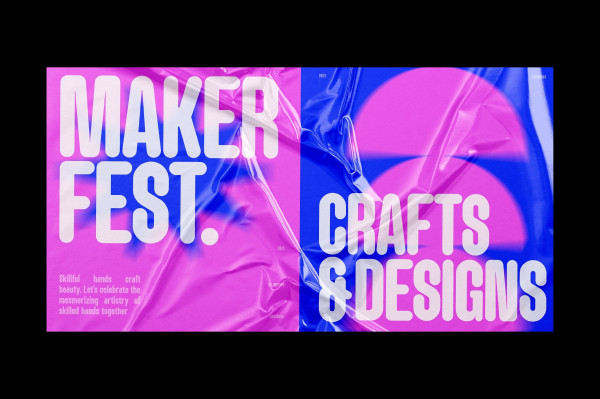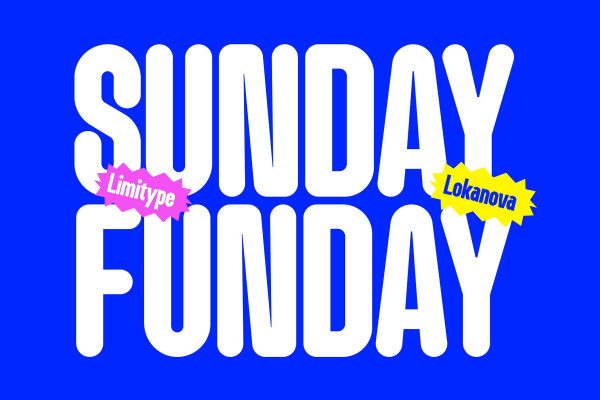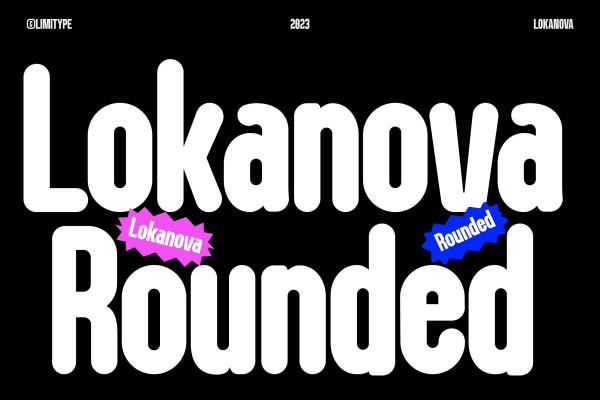
Lokanova Rounded Font
Lokanova Rounded Font – Lokanova is a display font with a sans serif type designed in a bold and unique style to give the impression of a firm but still playful design. Lokanova is available with uppercase, lowercase, number, symbol and multilingual